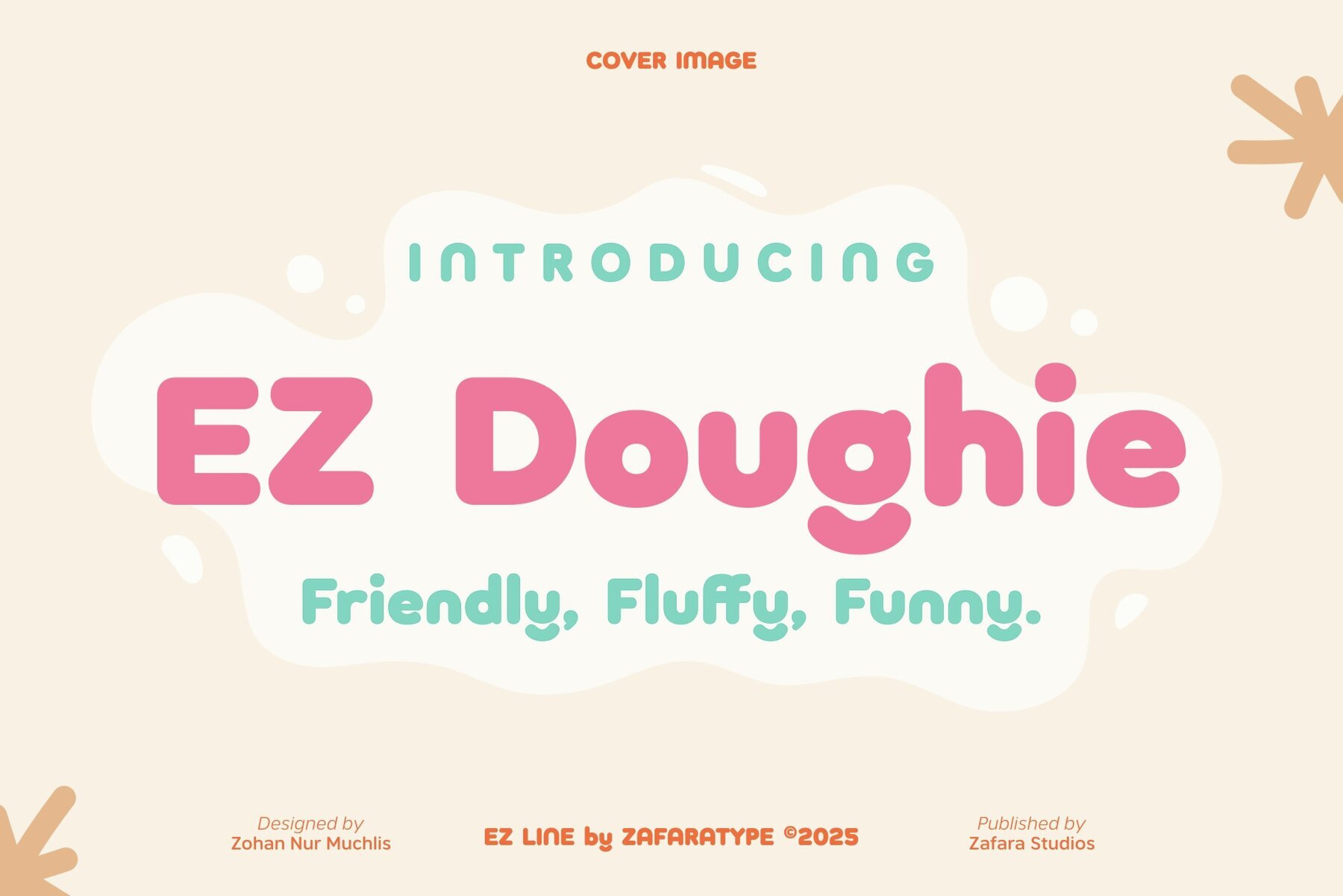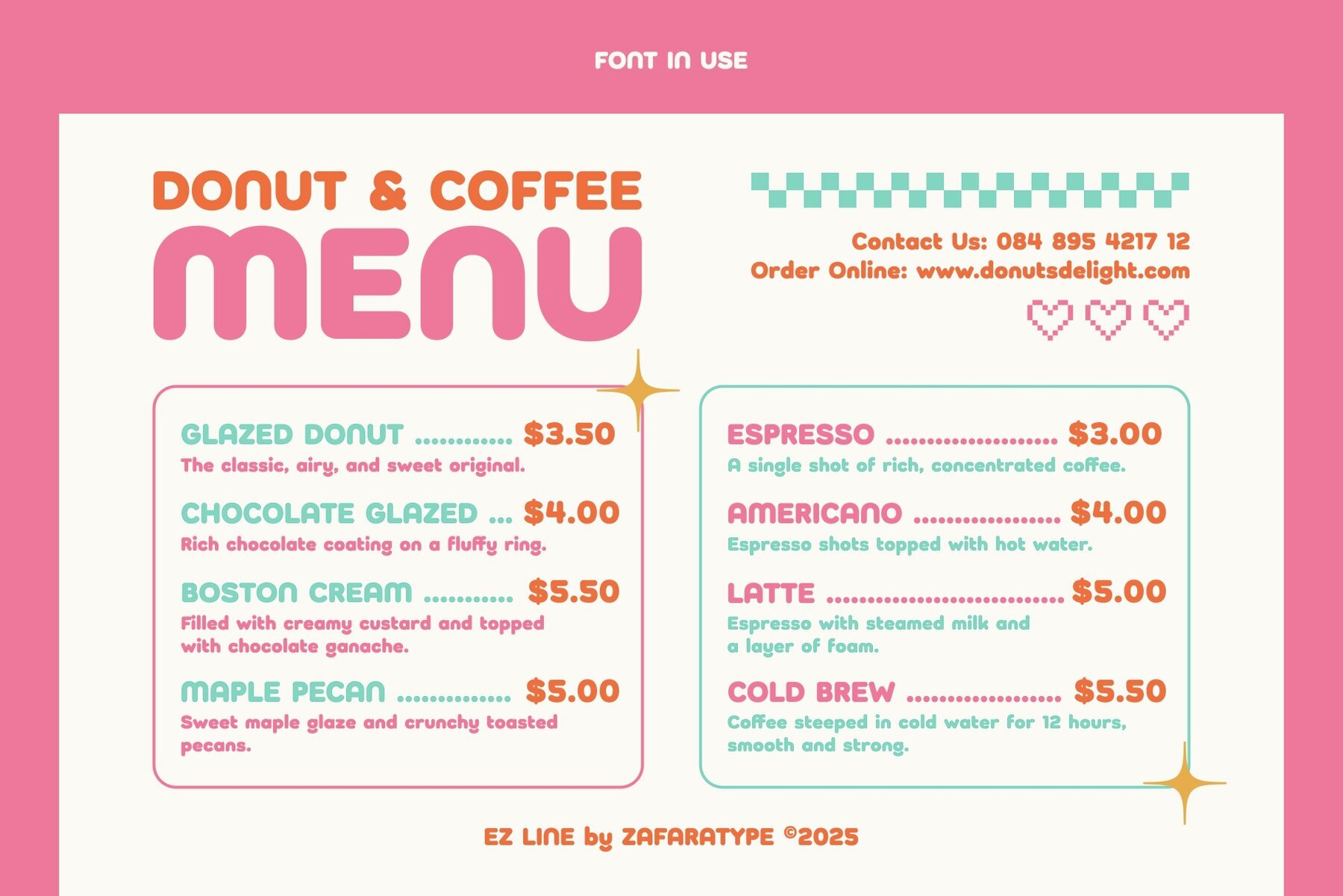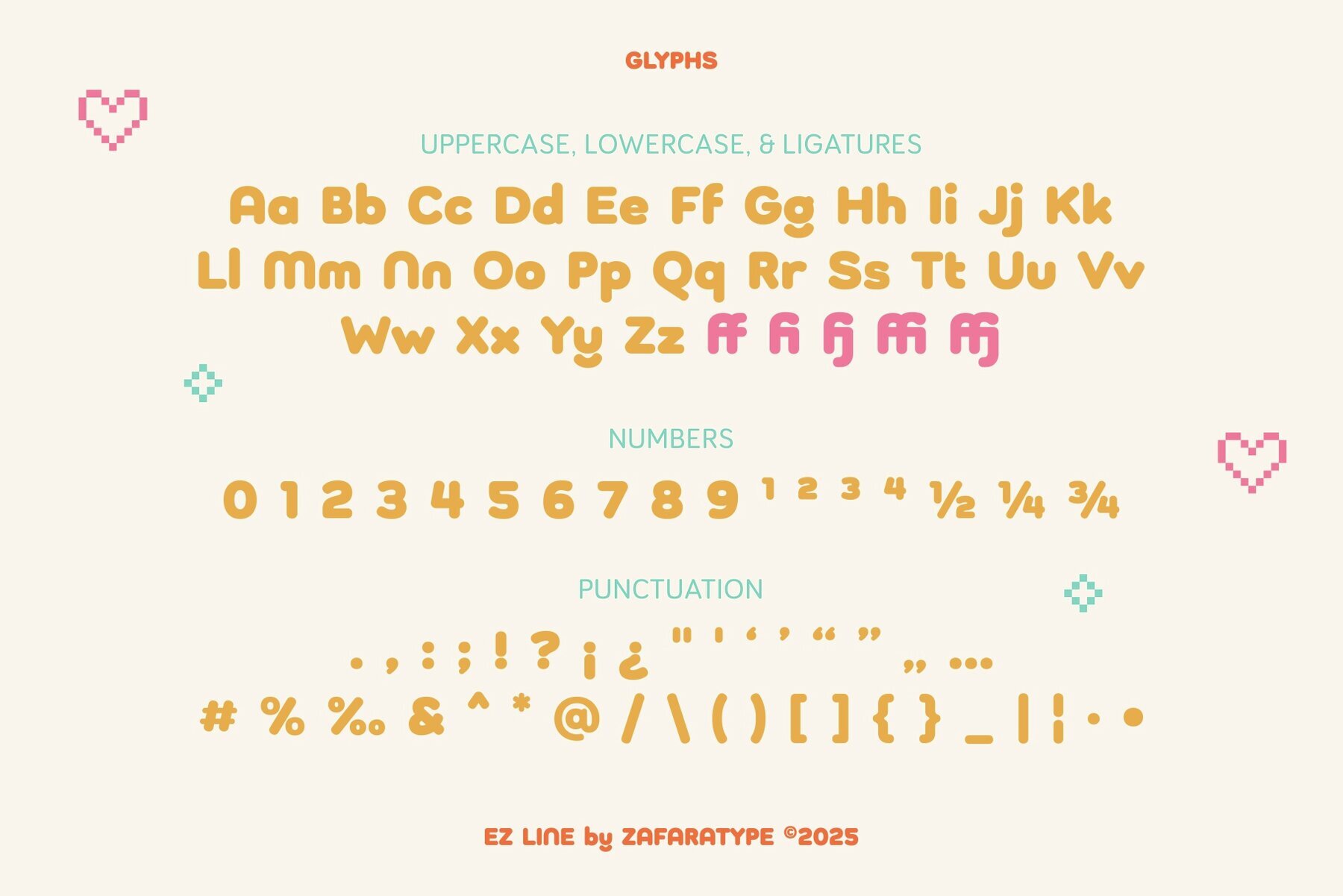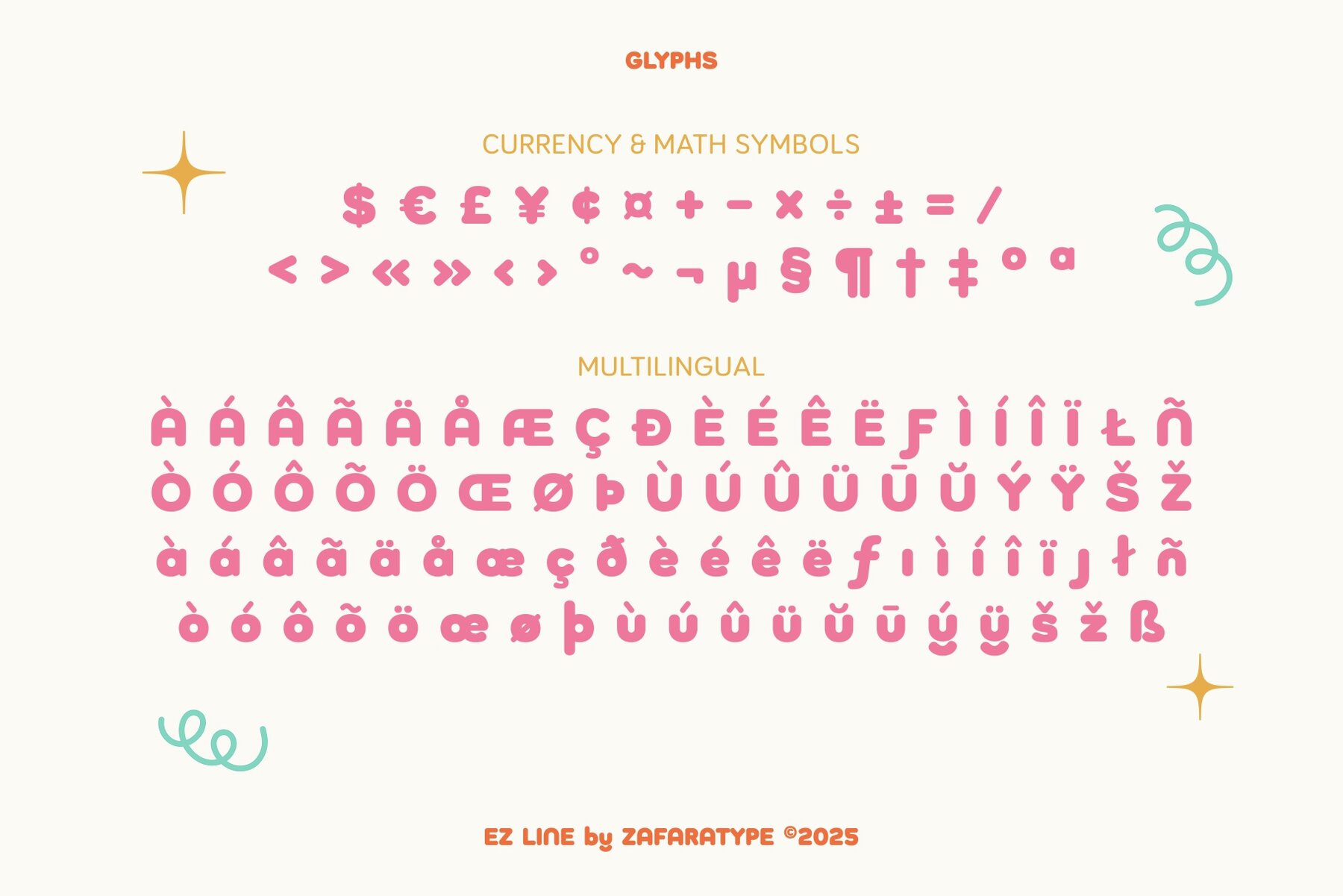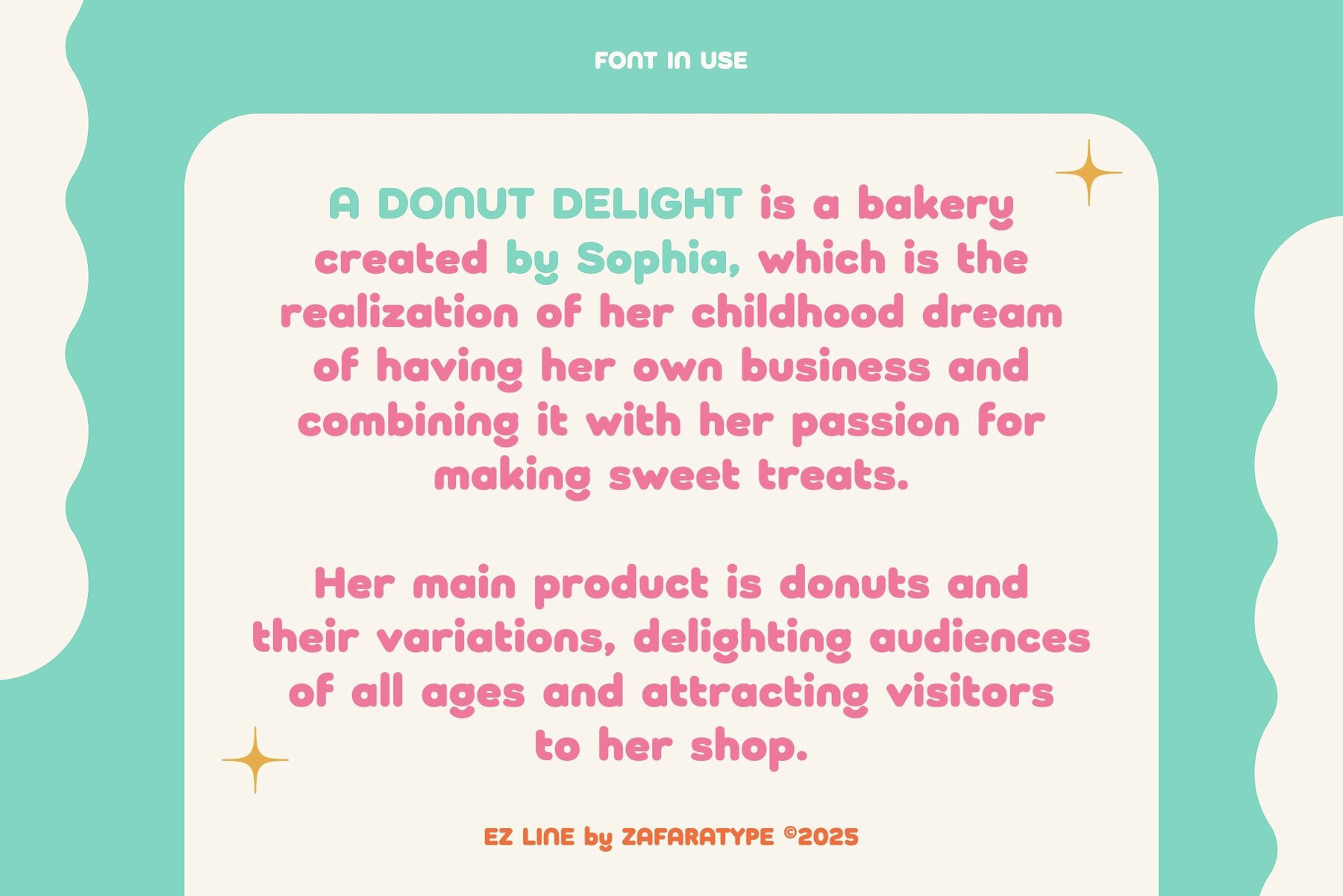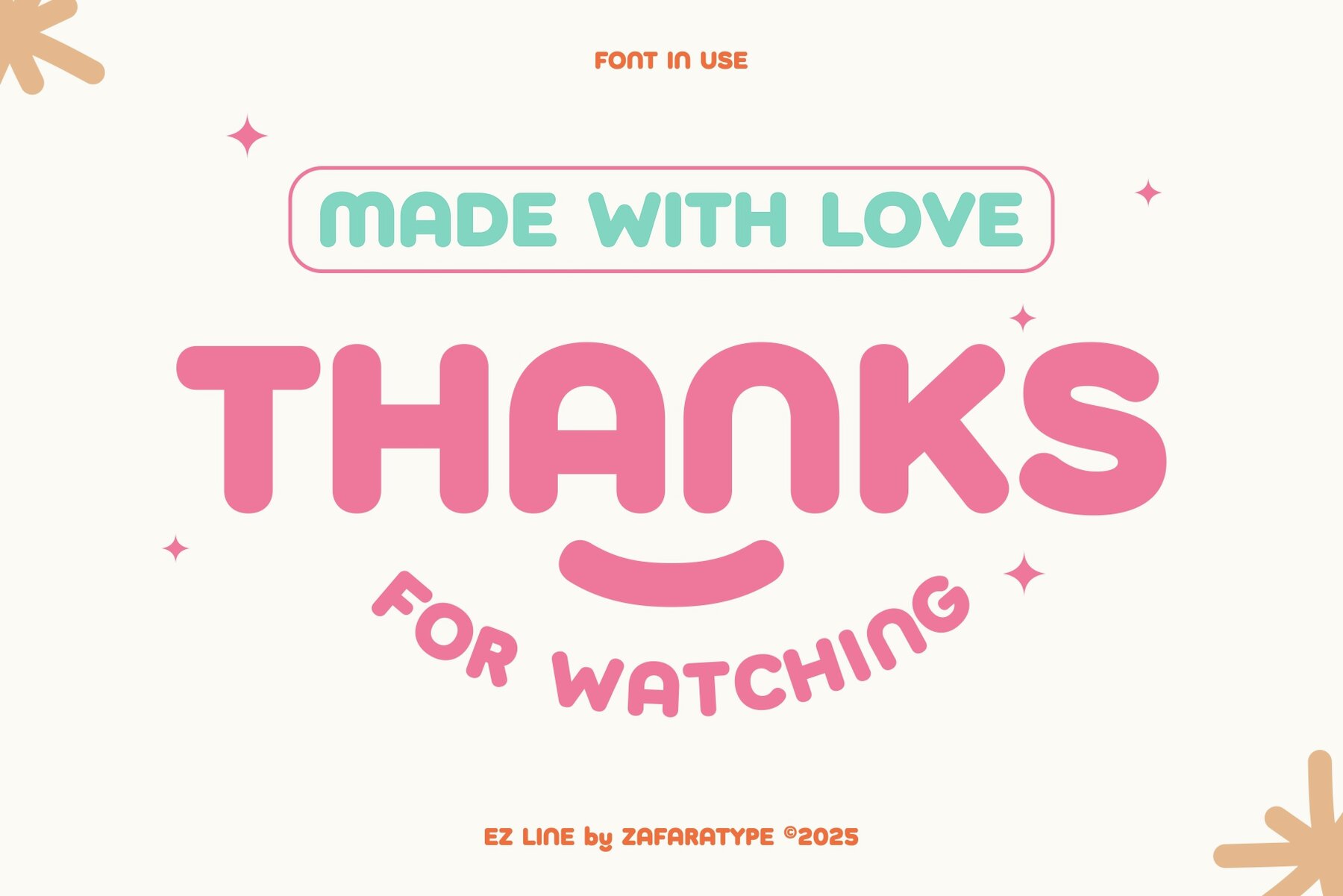
EZ Doughie Font
EZ Doughie
EZ Doughie is a rounded display font designed to bring playful energy to modern projects. Its chubby curves and smooth, dough-like forms create an inviting, cheerful character—ideal for designs that call for a warm and welcoming personality. Whether you’re working on logos, packaging, posters, or social media graphics, this font delivers a standout look with its friendly and approachable style. Perfect for children’s products, branding, and any setting that benefits from a touch of charm and sweetness. EZ Doughie maintains clarity and readability, making it easy to integrate into a wide variety of creative projects that need a bold, happy presence.EZ Doughie Rounded Display Font